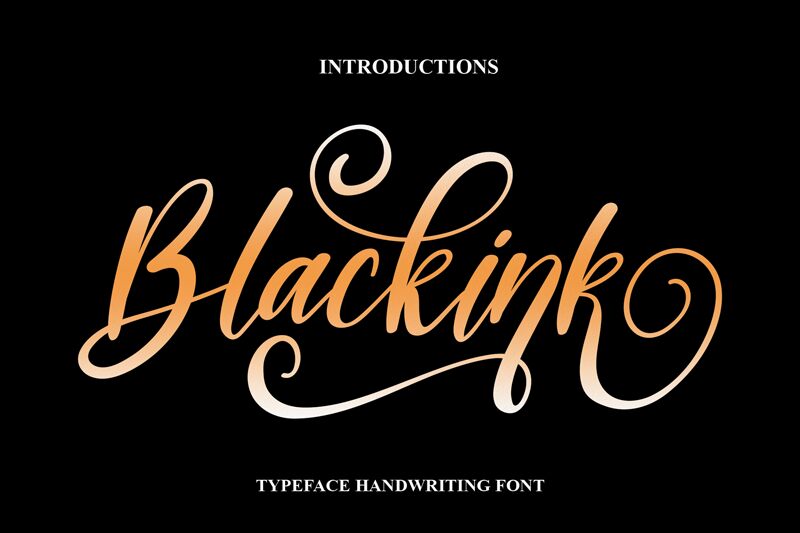
Blackink
Elevate your design game with Blackink, the semi-light calligraphy font designed by scratchones. With its inspiring and elegant style, this font is perfect for projects that require a touch of sophistication and creativity. Its semi-light weight makes it easy to read while still maintaining its unique personality. Use it for wedding invitations, branding materials, or even social media graphics to add a touch of elegance and class. Blackink's intricate details will leave a lasting impression on your audience and make your designs stand out from the crowd. Try it today and see the difference it can make in your projects!
the latest style letters are perfect for wall displays, wedding invitations, social media post logos, advertisements, product packaging, product designs, labels, photography, watermarks, invitations, stationery, and any project that requires taste handwriting.